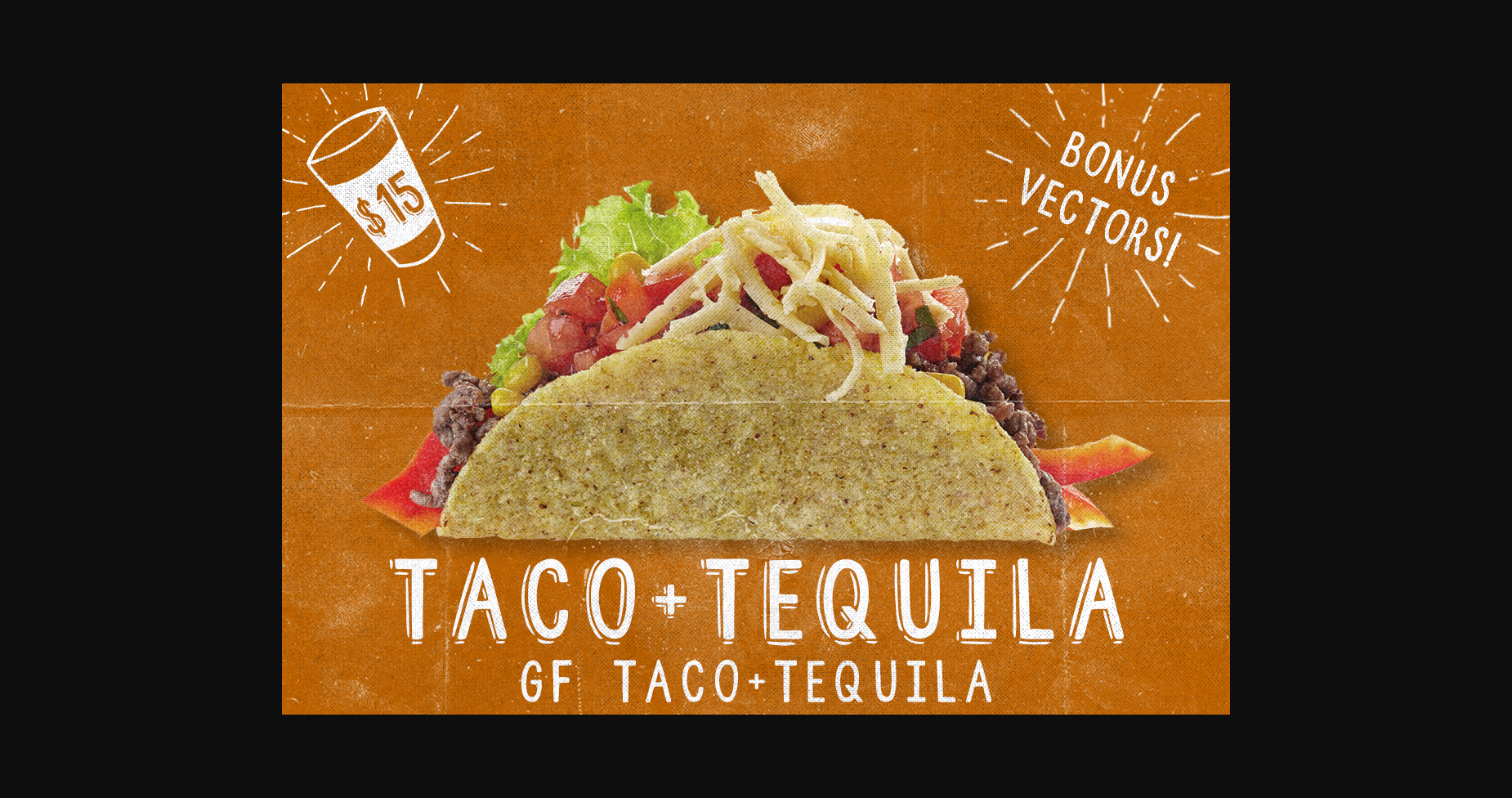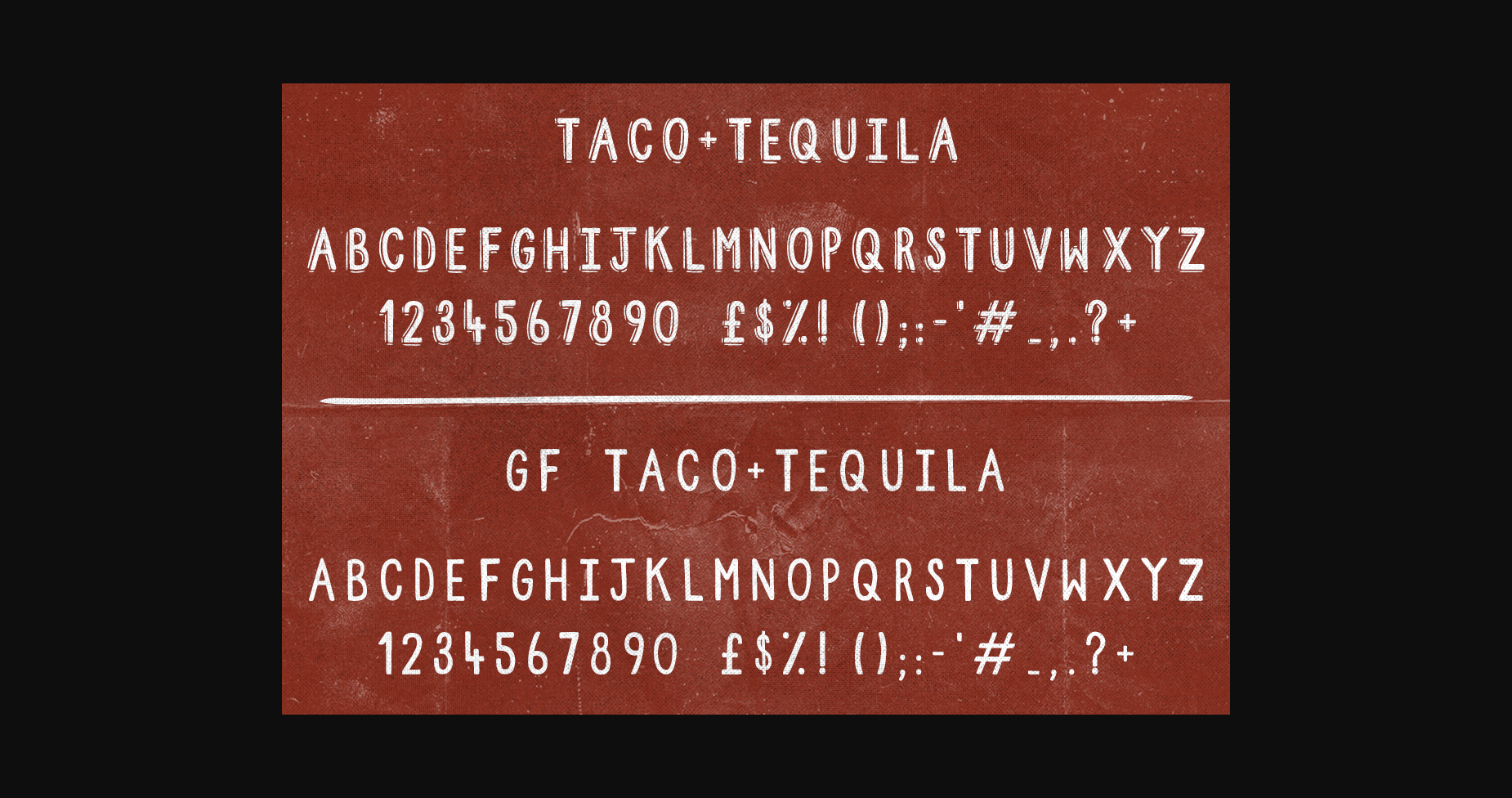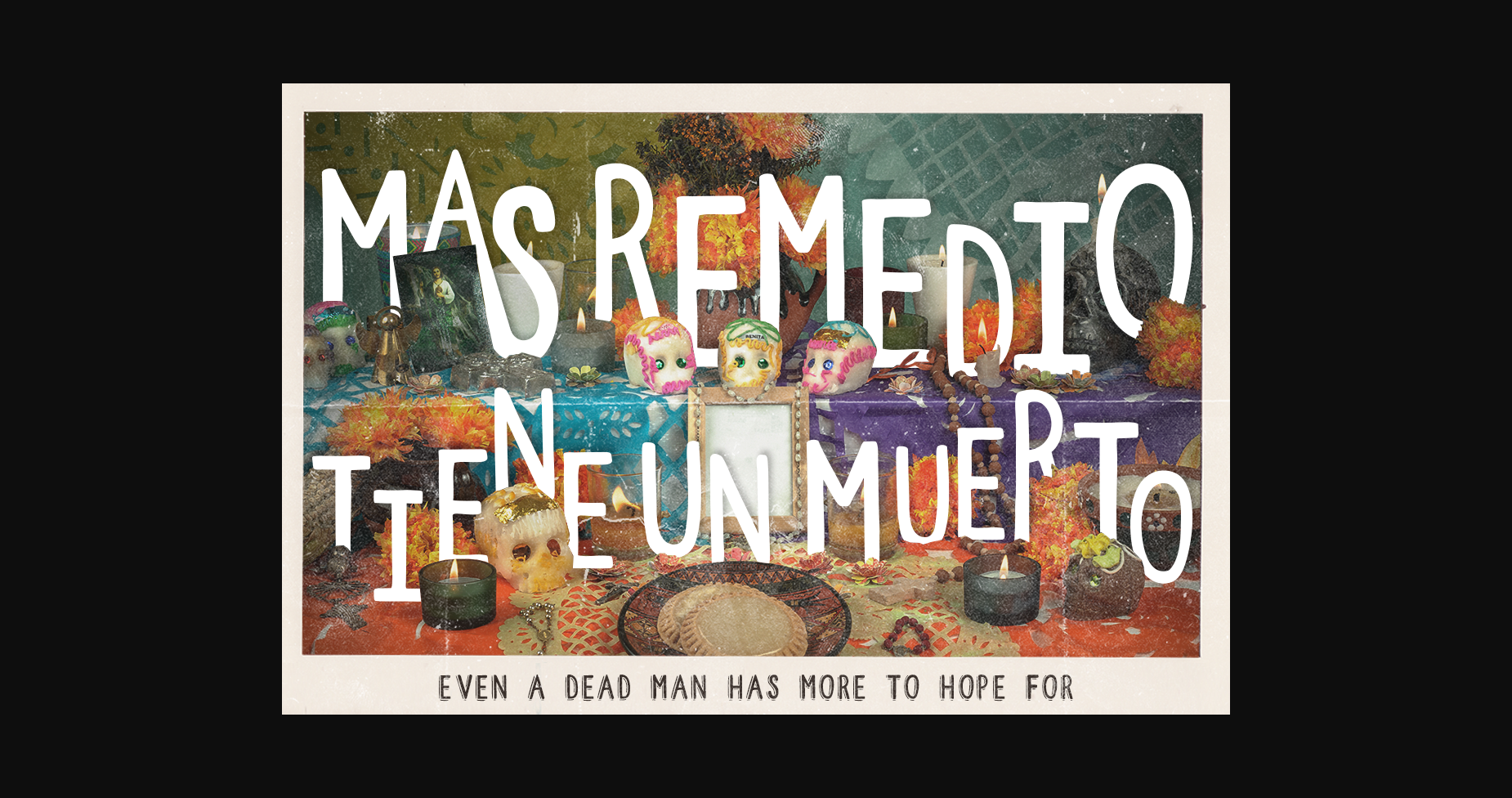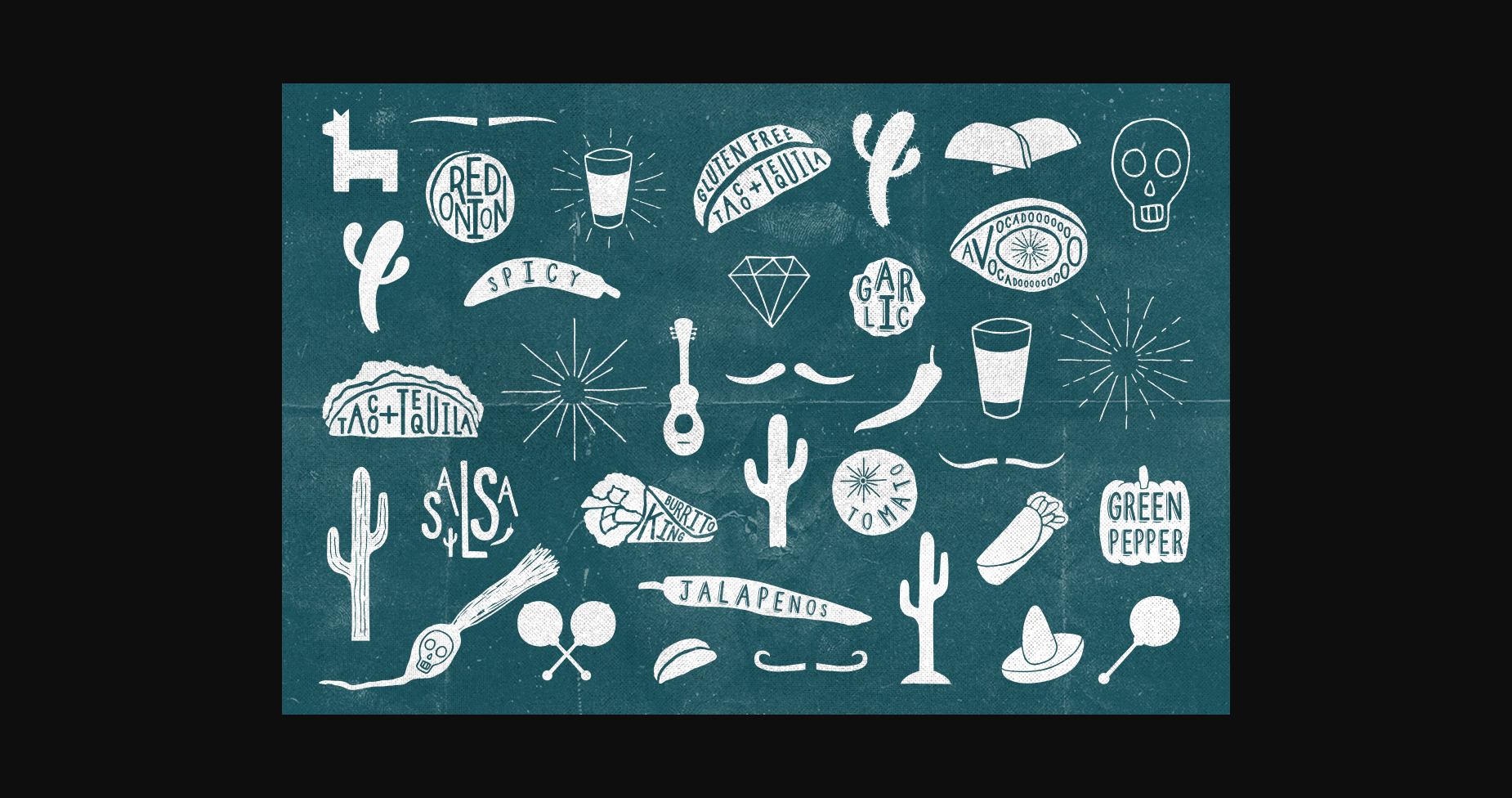
Taco and Tequila Font
About Taco and Tequila Font
Taco and Tequila is a cool, thin lettered and vintage styled sans serif font. Whatever the topic, this font will be a wonderful asset to your font library, as it has the potential to enhance any creation.